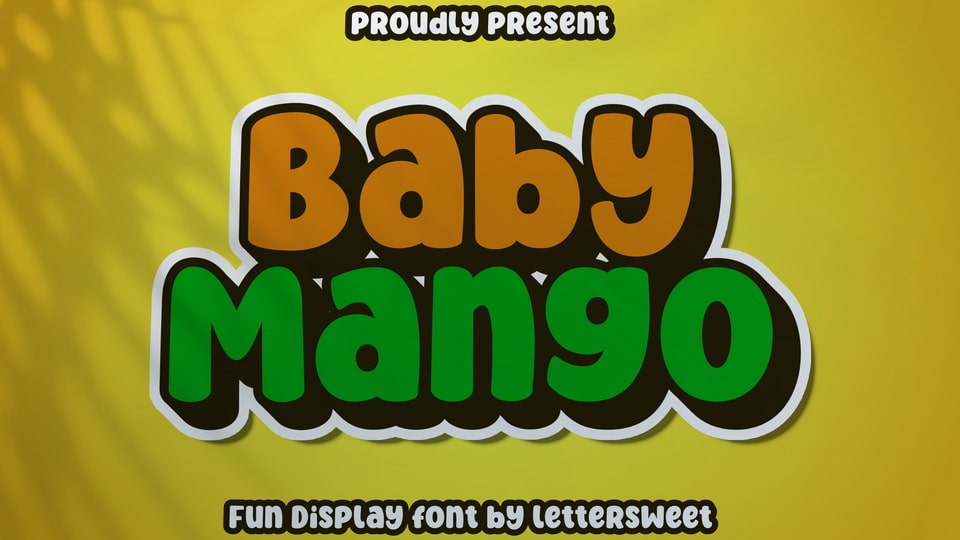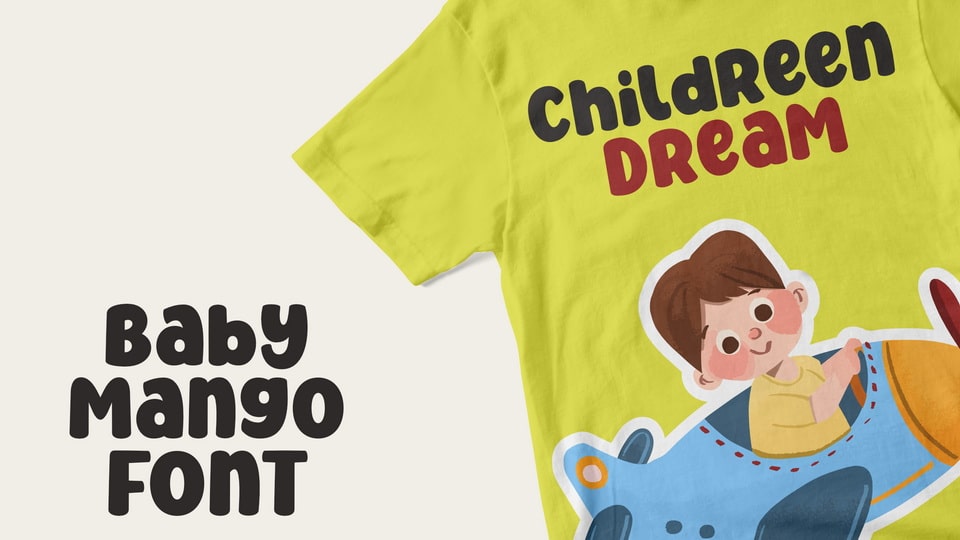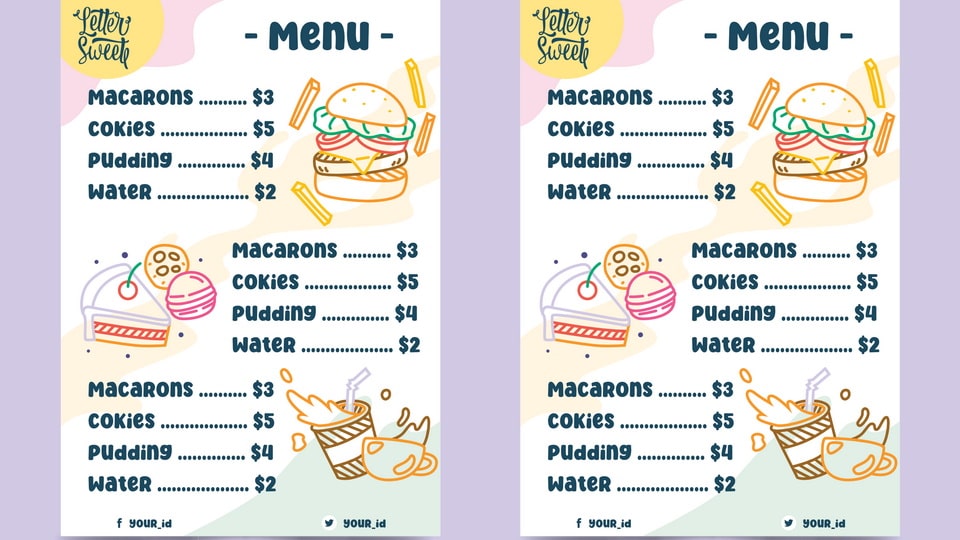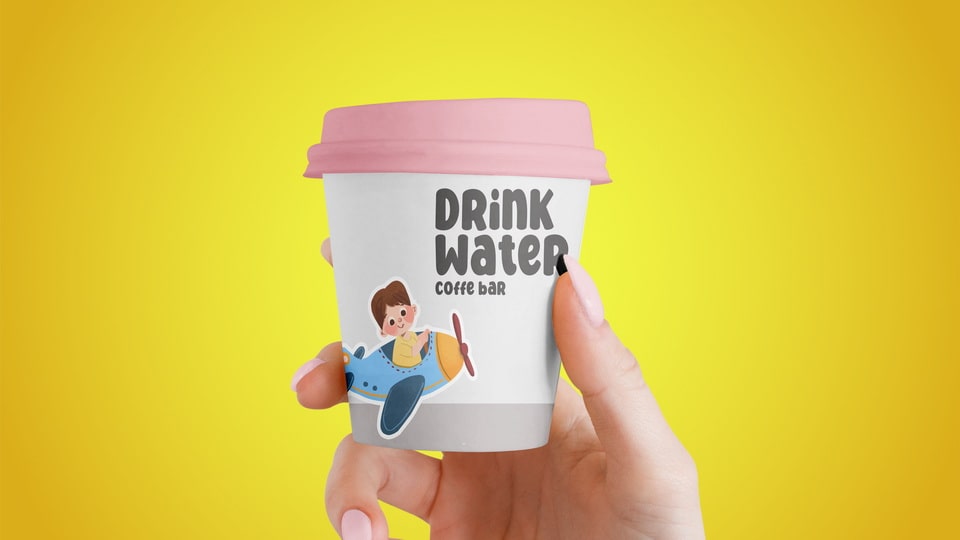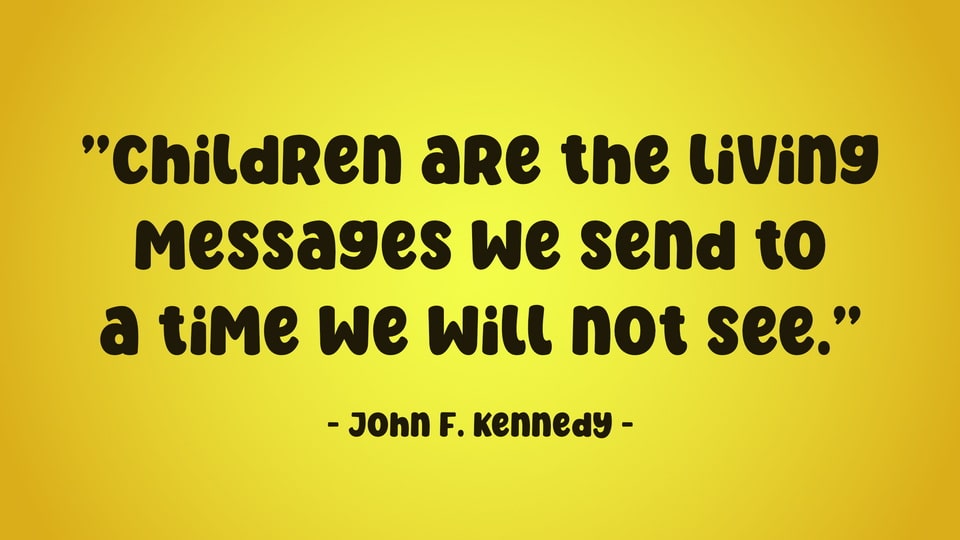
Baby Mango is a contemporary display font bursting with playful personality. With its carefully calibrated curves and thoughtfully designed aesthetic appeal, Baby Mango brings a fun-filled energy to any design.
It’s the perfect choice to add a dash of excitement to various projects like inspirational quotes, heartfelt greeting cards, party invitations, eye-catching posters, trendy business cards, and impactful presentations.